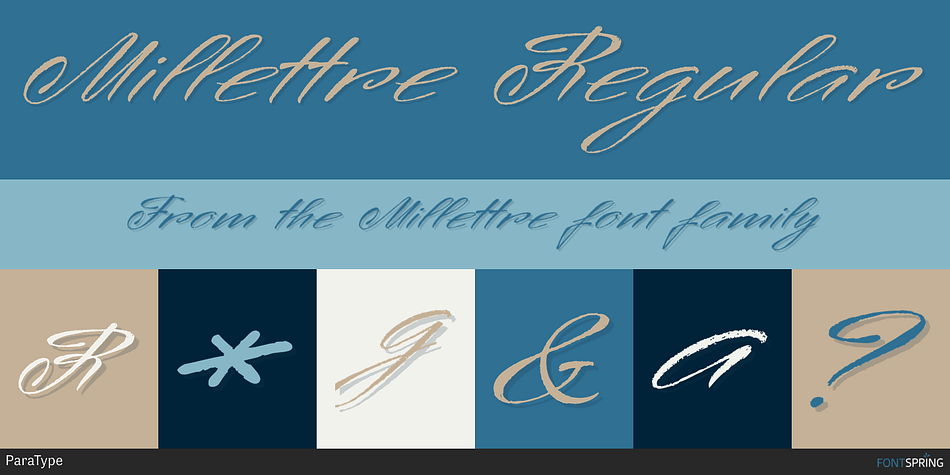
Millettre Regular
Designed by Ludmila Mikhaylova, Millettre is a script font published by ParaType.
A calligraphic script font Millettre is the last member of the trilogy of types designed by Lyudmila Mikhailova.
A calligraphic script font Millettre is the last member of the trilogy of types designed by Lyudmila Mikhailova. First two fonts Milanette and Milafleur were released earlier. The font is based on author’s lettering artworks which she did for many years for companies who produced greeting cards. The characters of the font have rough contours simulating lettering by a pointed pen on a rough paper. The character set covers standard Western, Central European and Cyrillic code pages. The default version of the font is presented by disconnected script, but connected variant is also included and organized as an alternative stylistic set. The font also contains some initial, finial and alternative forms of letters. Recommended for use in advertising and display typography. Released by ParaType in 2011.
Designer Ludmila Mikhaylova